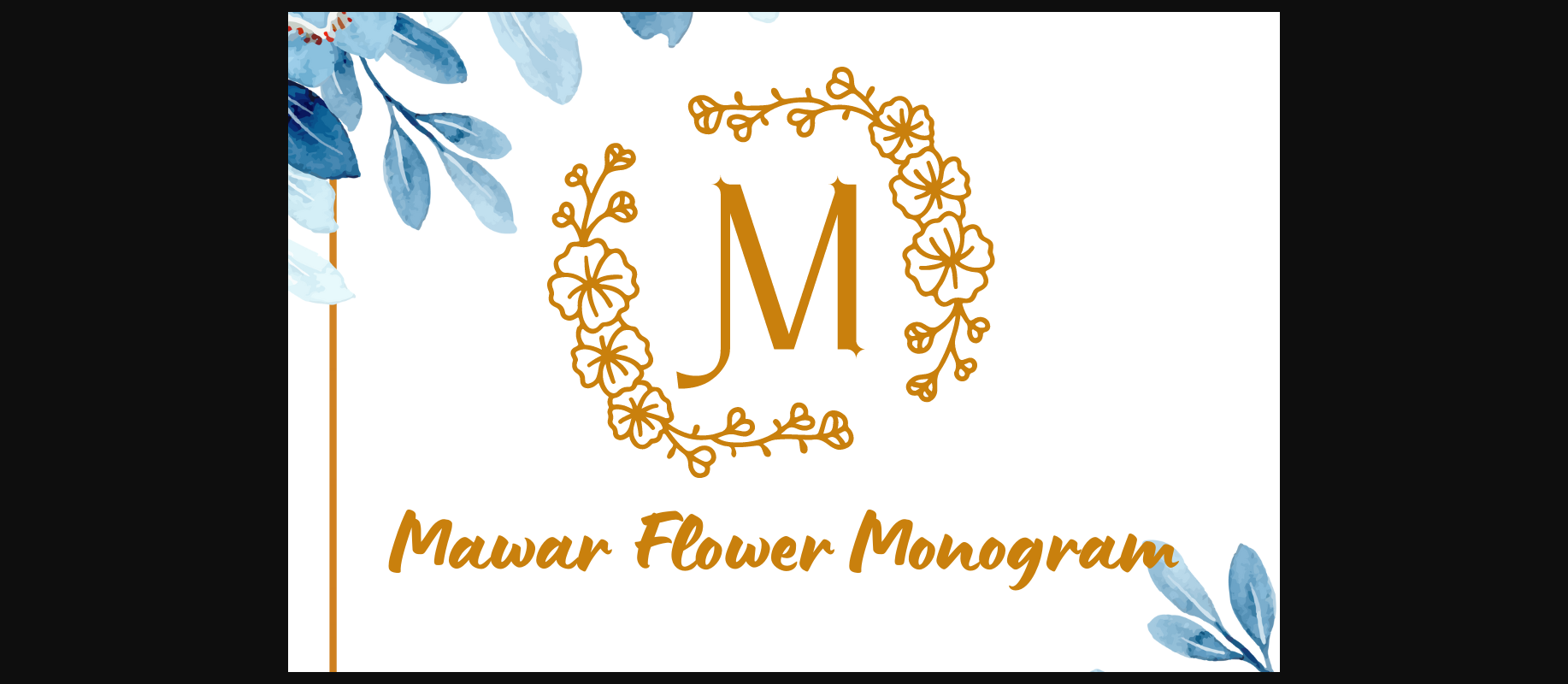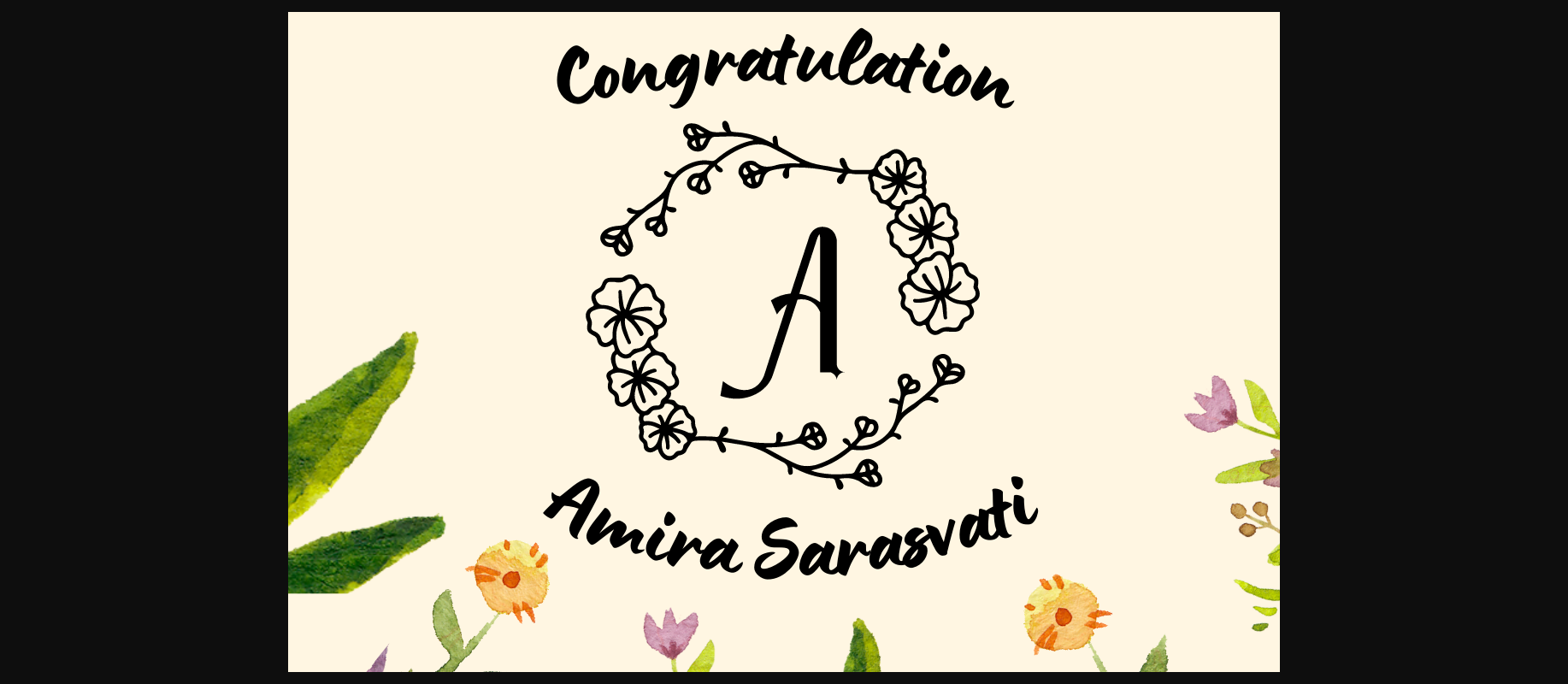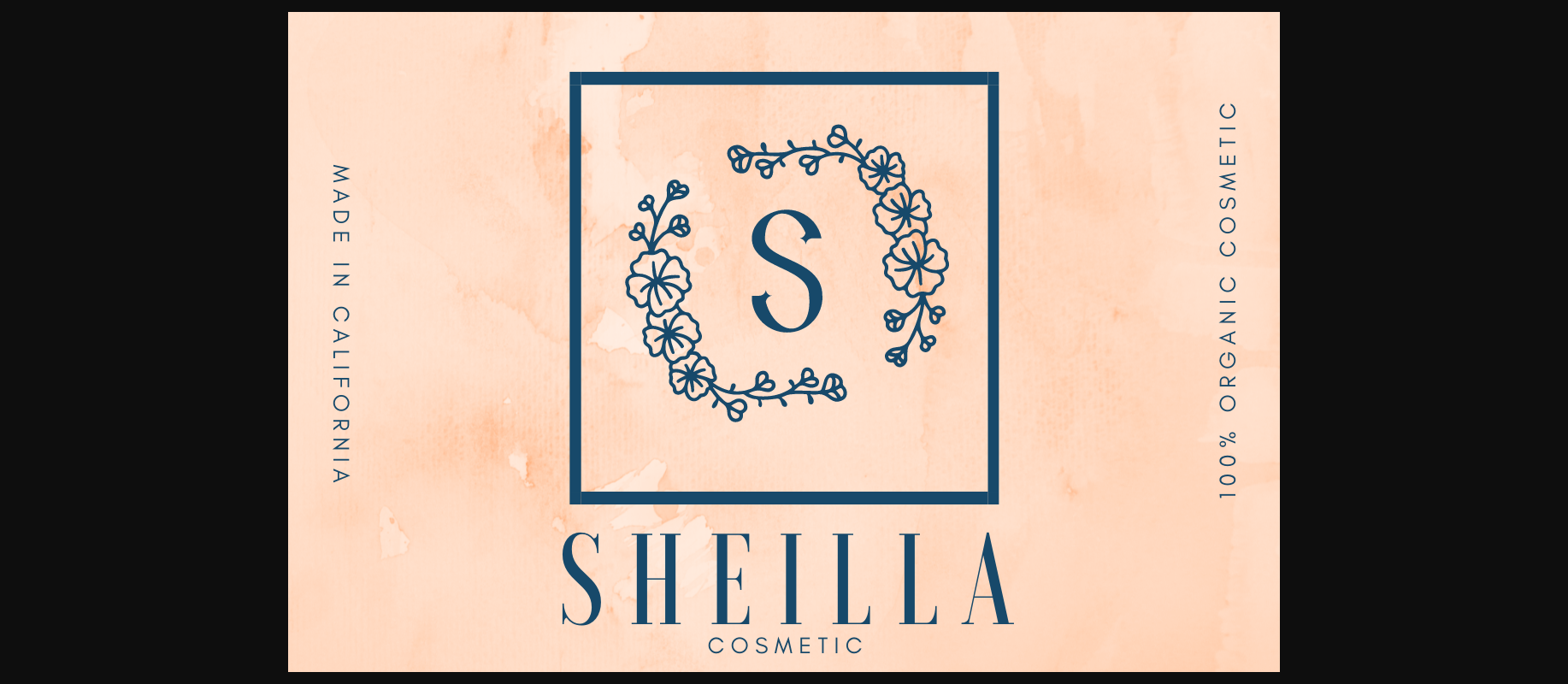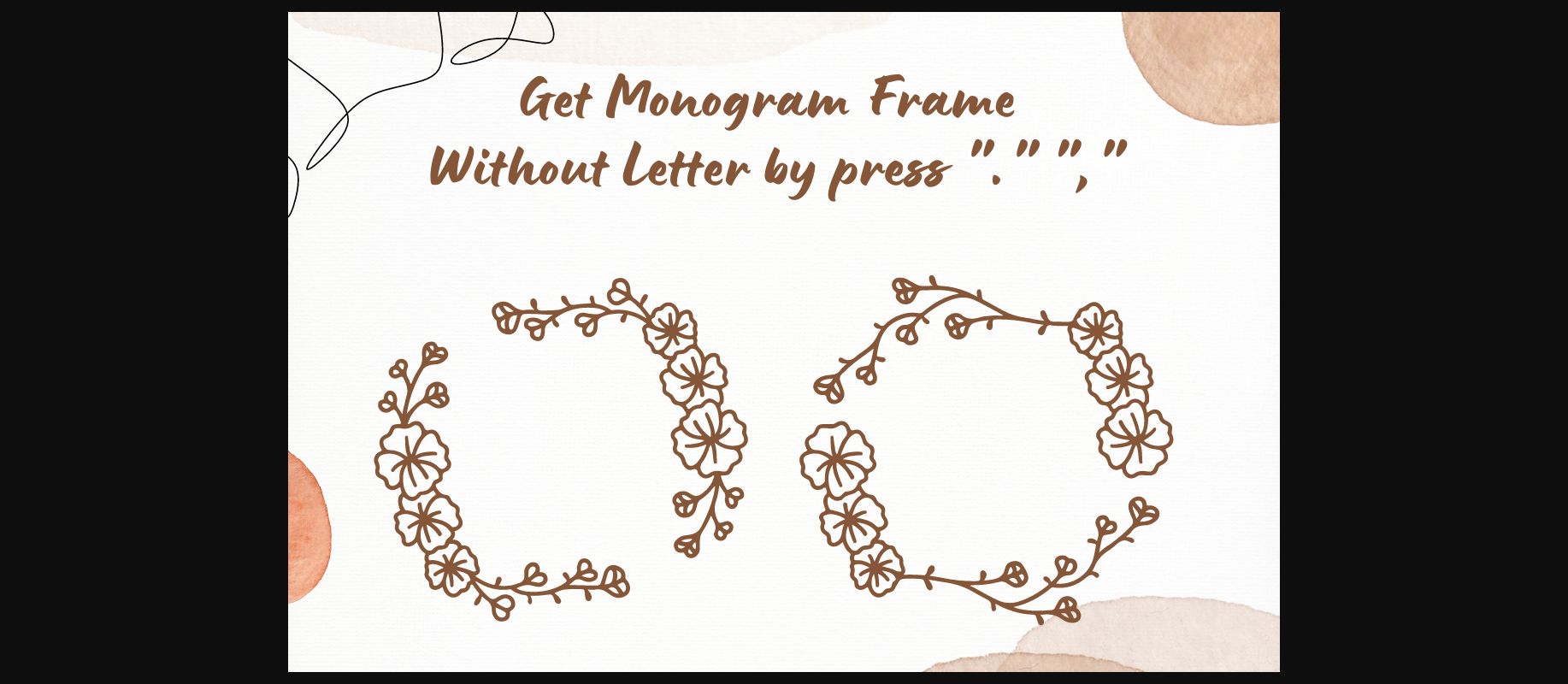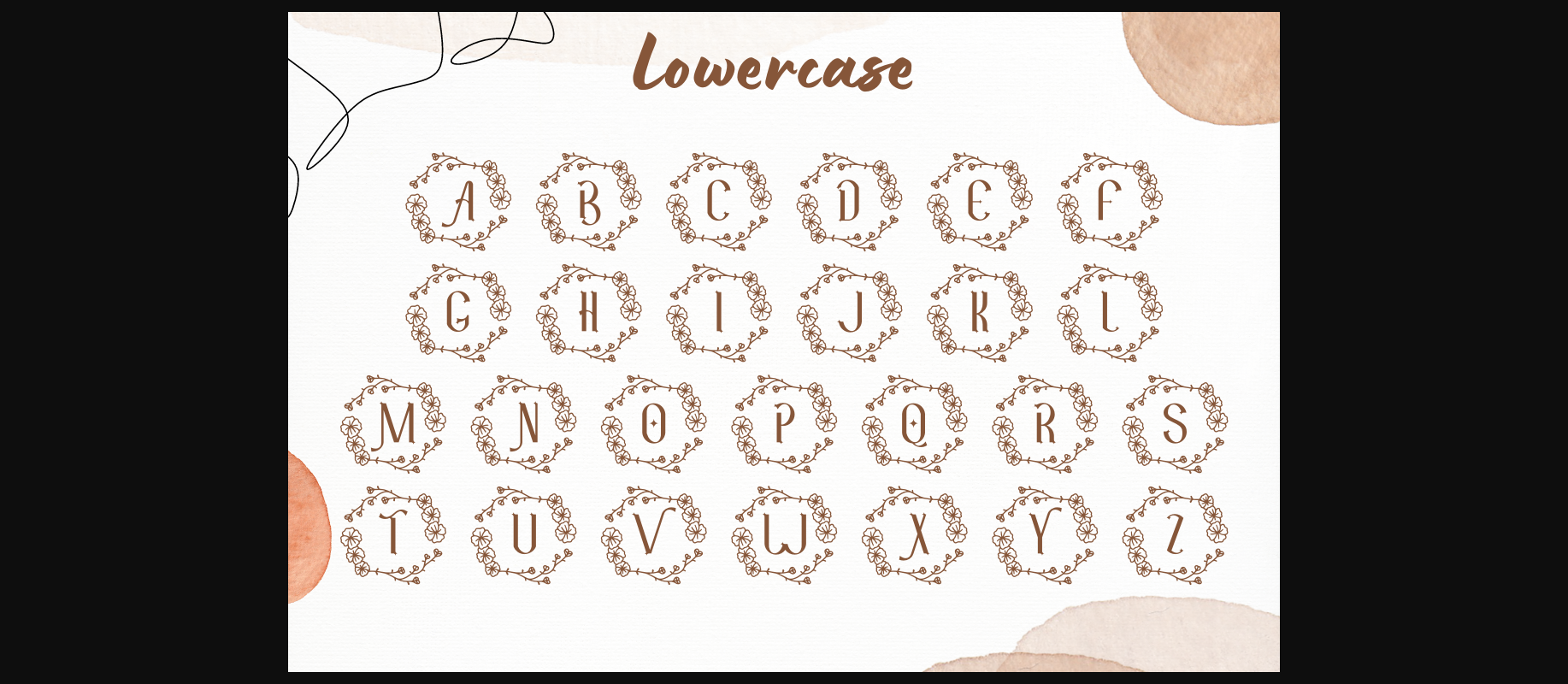
About Mawar Flower Monogram Font
Mawar Flower Monogram is a flower monogram font. It comes with beautiful botanical wreath designs for your special occasions, business designs, logos, branding, social media posts, and wedding cards.
Comes in 2 styles.
Just simply change between uppercase and lowercase to see the different styles!